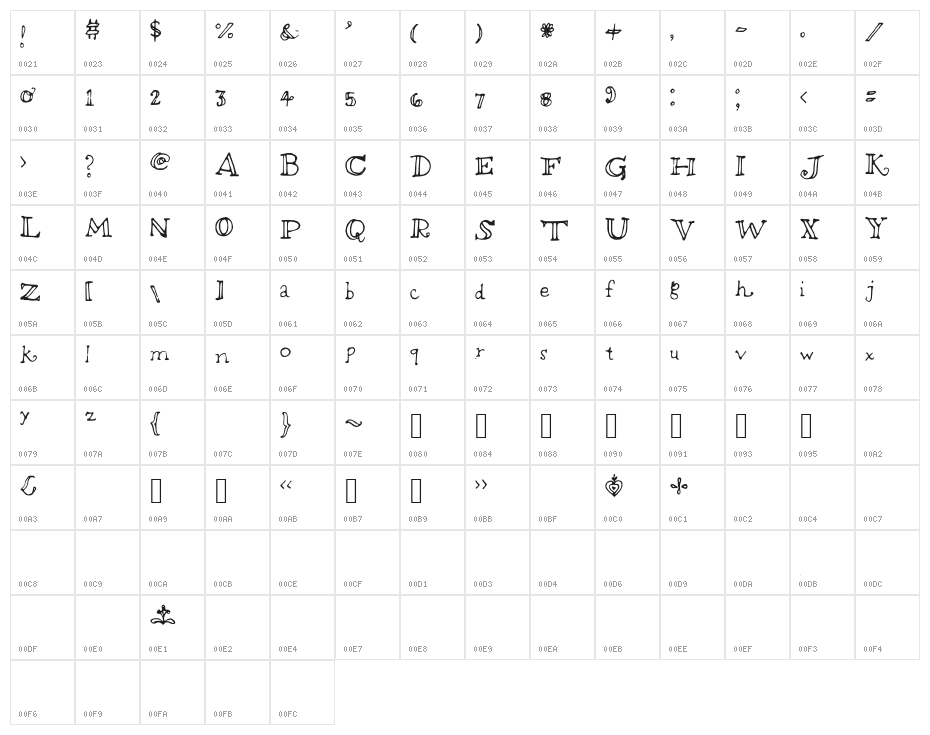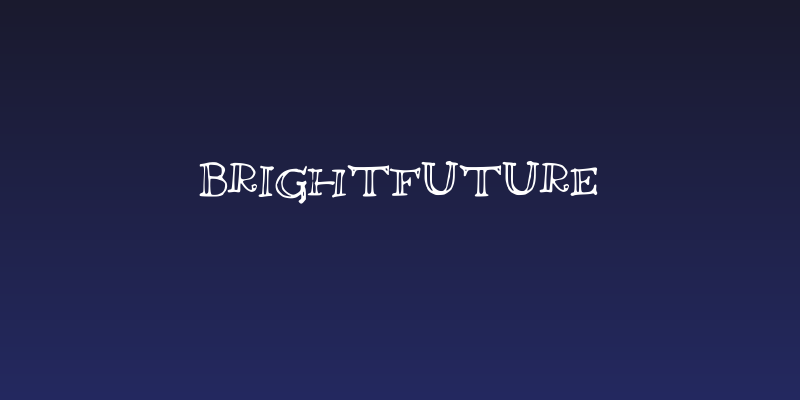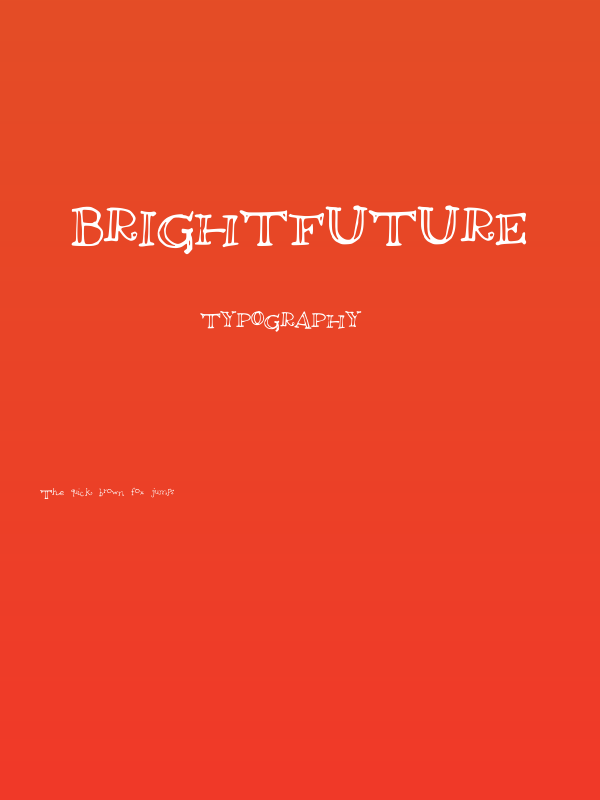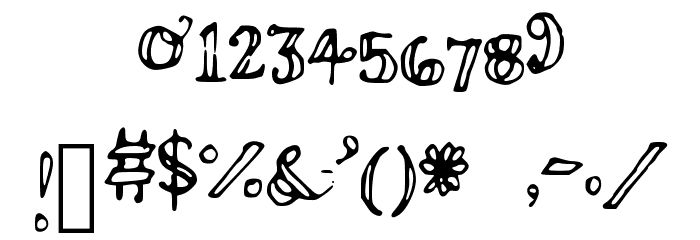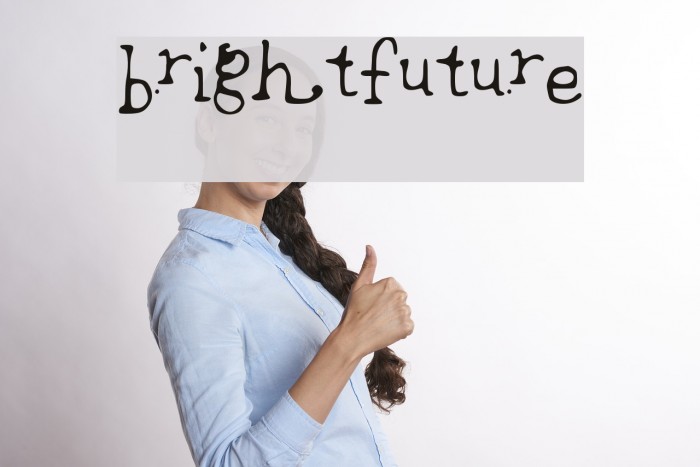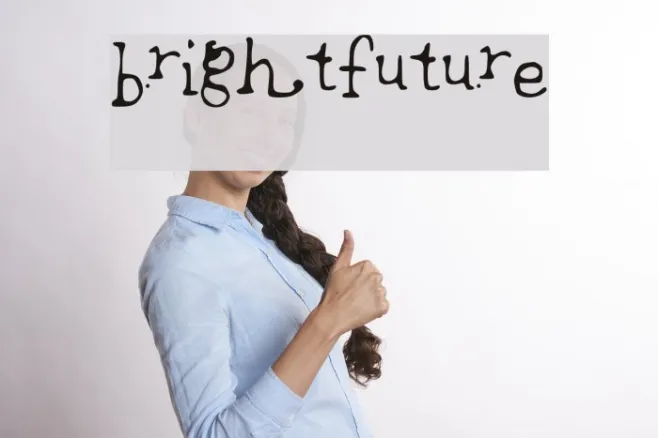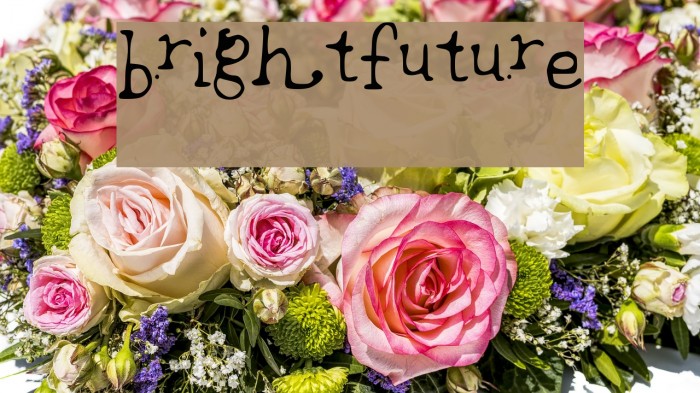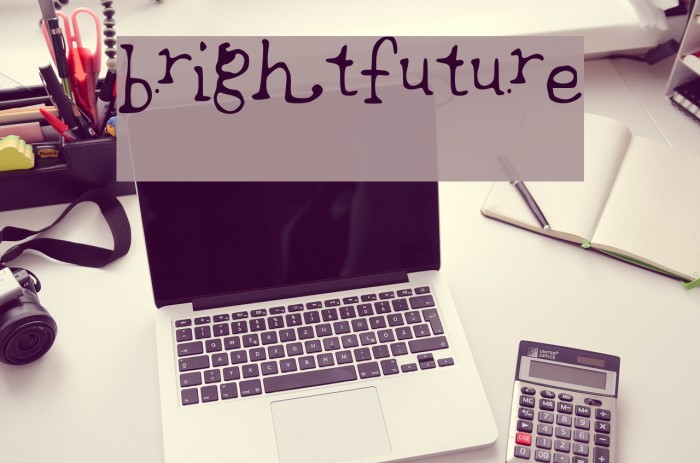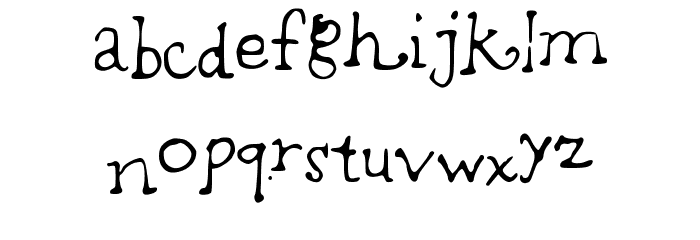
brightfuture Font
brightfuture Description
This font features a whimsical and playful design, characterized by its unique and irregular shapes. The uppercase letters have a bold presence with exaggerated serifs and varying stroke widths, creating a dynamic and eye-catching appearance. The lowercase letters maintain a similar playful style, with some characters exhibiting loops and curls that add to the font's charm. Numbers are equally distinctive, with a bold and quirky style that complements the overall design. Special characters are creatively styled, maintaining the font's playful and decorative theme. This font is ideal for projects that require a fun and engaging visual element.
BRIGHTFUTURE UPPERCASE
BRIGHTFUTURE LOWERCASE
BRIGHTFUTURE OTHER CHARS